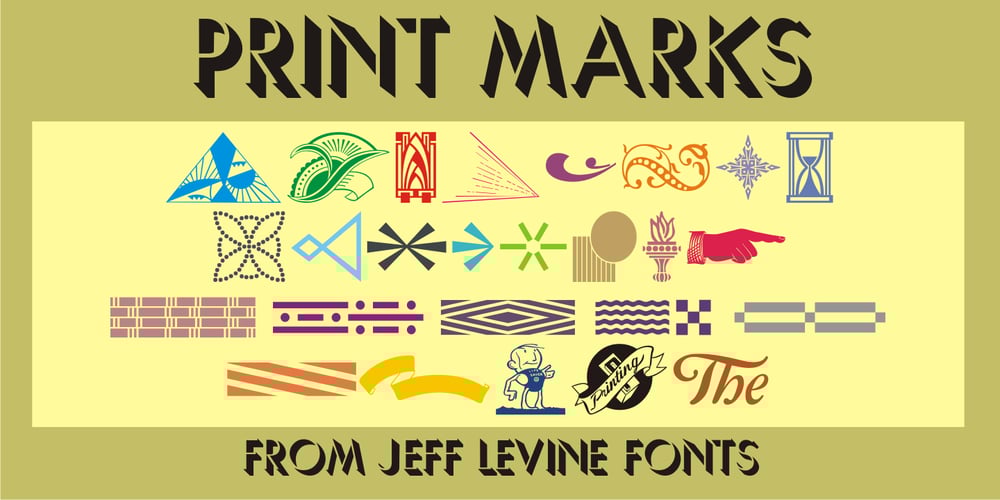
Print Marks JNL Font Family was designed by Jeff Levine and published by Jeff Levine. Print Marks JNL contains 1 styles and family package options. Print Marks JNL assembles more old print shop cuts into a varied assortment of embellishments, border elements, designs and printer’s marks. Newly re-drawn from vintage source material, they will brighten text with their nostalgic and charming look.